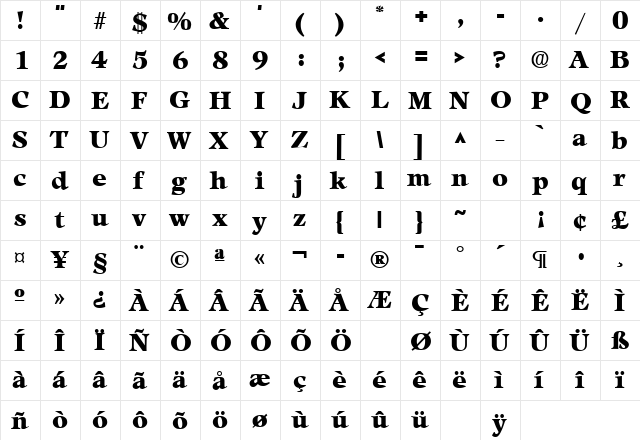
LeamingtonH Bold
Design Context for LeamingtonH Typeface
LeamingtonH takes a measured approach to typography — its balanced proportions and neutral character make it a reliable workhorse for both digital and print work. The heavy weight commands attention and anchors typographic hierarchies.